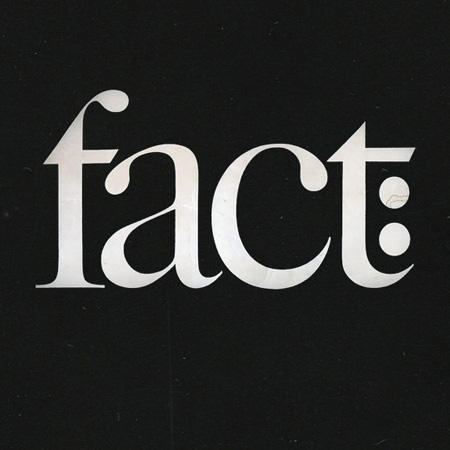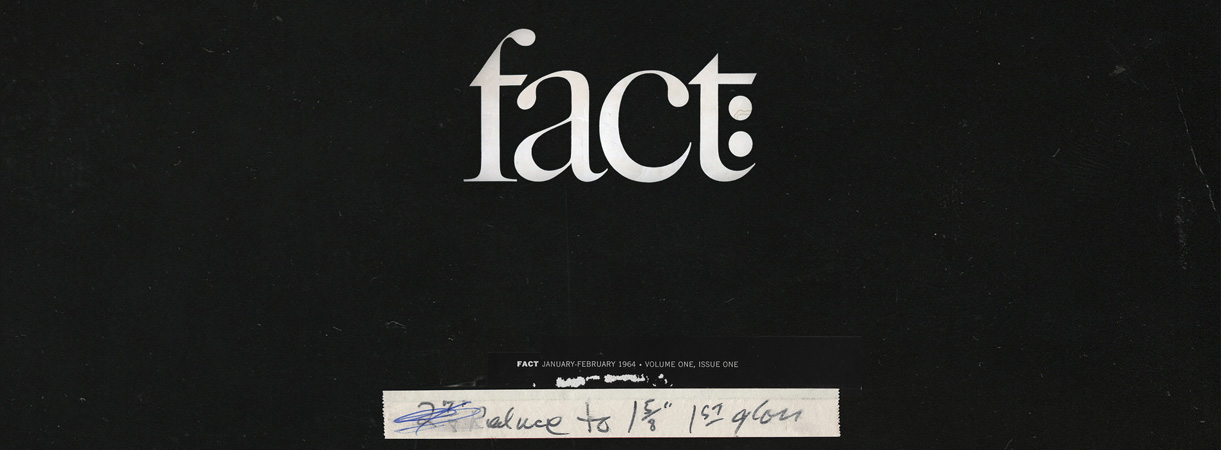
Introducing the Herb Lubalin work in context
Most people recognize the name Herb Lubalin in association with the typeface Avant Garde yet his career spanned a much wider scope than that. The creative force behind the forward thinking magazines Avant-Garde, Eros and Fact, Lubalin was a constant boundary breaker on both a visual and social level. “Part of the founding team of the International Typeface Corporation (ITC) and the principal of Herb Lubalin Inc, it was hard to escape the reach of Herb during the 1960s and 70s” writes Design is History on the iconic typographer and designer whose inventiveness made him one of the most successful art directors of the 20th century.
A graduate of the Cooper Union in New York himself his work is celebrated once again with the newly launched website Flat File which will showcase singular works of graphic design from its collection on a weekly basis.
“It feels like it took us a few years to get to this place where we could think this up but the actual project took only a few weeks,” says Alexander Tochilovsky, curator of The Herb Lubalin Study Center and the man who edits the site, providing insightful context and history about the works. “A fortuitous meeting with a web designer, Anton Herasymenko, who visited the archive to browse, and a brief chat, got the ball rolling” he added.
The site has already garnered significant attention from the design and typography community although there was no fanfare about Flat File’s launch. “The first tweet about it was seen by 16,000 people; 2,000 viewed the site in its first day. In the first five days that one post about Fact: magazine was viewed 4,300 times. The mailing list we set up for it grew by 1,500 subscribers. This is all in one week,” Tochilovsky says.
The Lubalin Center, which is open by appointment to anyone interested in browsing its extensive collection of design and typographical ephemera, recently celebrated its 30th anniversary. A related exhibition included actual flatfile cabinets where each drawer focused on an individual designer. Some of the future subjects for Flat File, the website, include Push Pin Studios’ Almanack and Karl Gerstner’s Capital magazine.
“I think the appeal this has is that there isn’t that much out there that focuses on individual pieces of design, and does it in a short, manageable format that designers can read quickly, and get something out of it,” Tochilovsky says. “We wanted to find a good balance between strong visual presentation and insightful but brief text. I want it to be inspirational, and for designers to be able to see how design history can be relevant to today’s practice.”
Lubalin’s amazing line of work comes direct from the archive at the Herb Lubalin Study Center and is presented via the Readymag format. The first installment of Flat File, with its focus on Lubalin’s art direction and design of Fact magazine in 1964, does not disappoint. “The best detail in this project is the logo Lubalin designed,” Tochilovsky writes in his essay accompanying six images of the 60s magazine. “It was drawn by Tom Carnase, and based on Caslon 540 – with the ‘f’ slightly modified to mimic the ‘t’.”